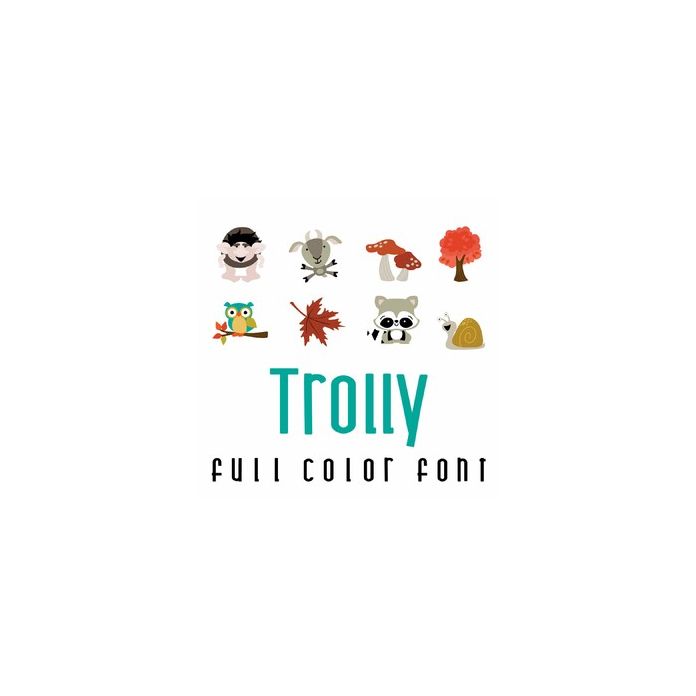
This adorable full color doodlebat font features fun trolls and fall themed imagery. Perfect for cards, crafts, gifts, decor, scrap book pages, planner stickers and more!